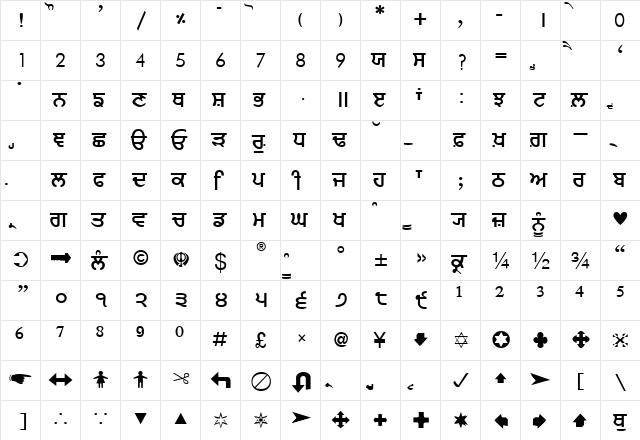
Janmeja2920a Normal Font Preview
Janmeja2920a Normal
Janmeja2920a Normal Font Details
Design Context for Janmeja2920a Typeface
Janmeja2920a is a composed and adaptable typeface that performs quietly and consistently across a wide range of design contexts.